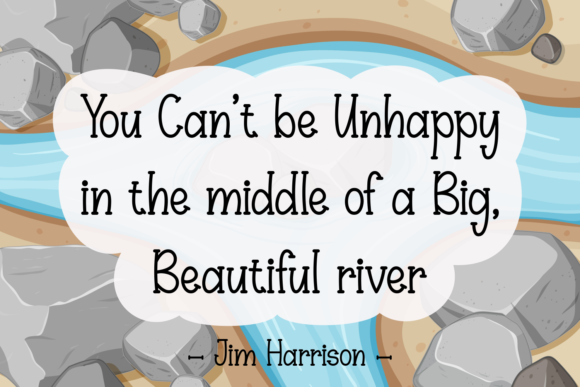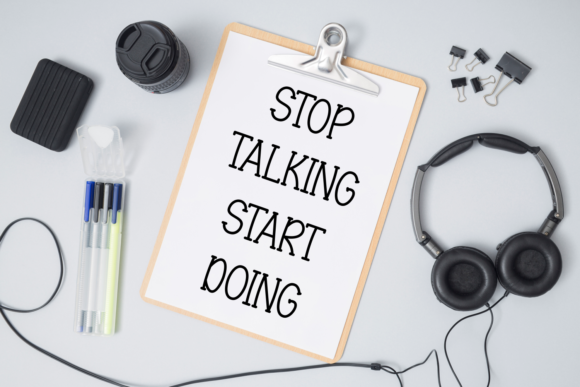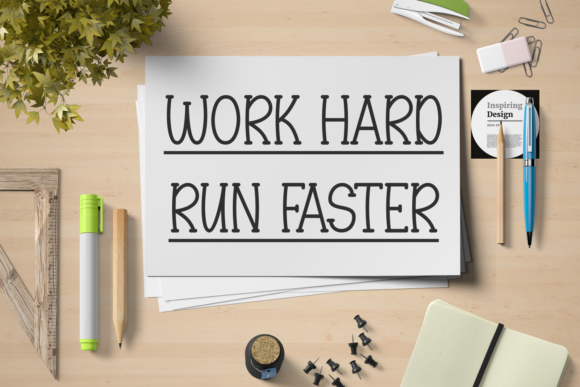
Introduction to Skinny Brook Font
Skinny Brook is a beautiful handwritten serif font.
This creative font is a perfect match for style quotes, t-shirts, magazines, logos, landing pages, logotypes, children’s books, and many more .